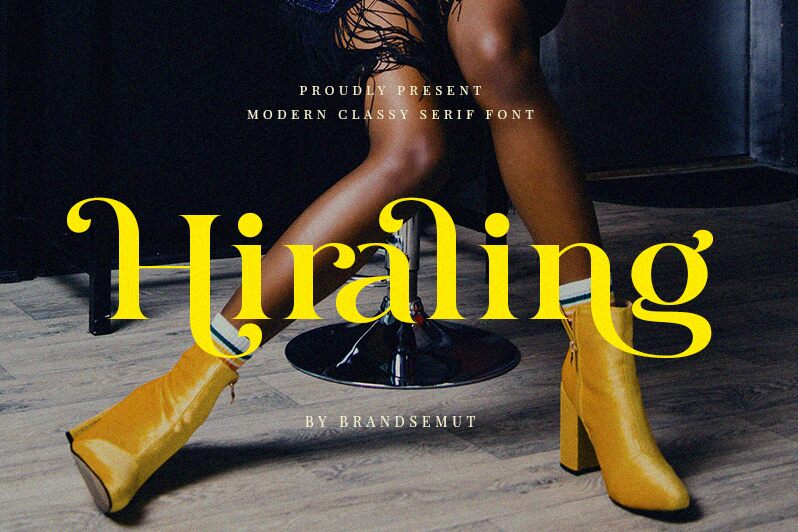
Hiraling
Hiraling, a creation by BrandSemut, is a modern serif font style that exudes elegance and sophistication. With its clean and sleek design, this typeface is perfect for projects that require a touch of class.
The semi-bold font weight lends itself well to fashion magazines and luxury brand logos, while the regular font weight is ideal for editorial designs or book covers. Its versatility makes it suitable for both print and digital media, ensuring that your content stands out in any context.